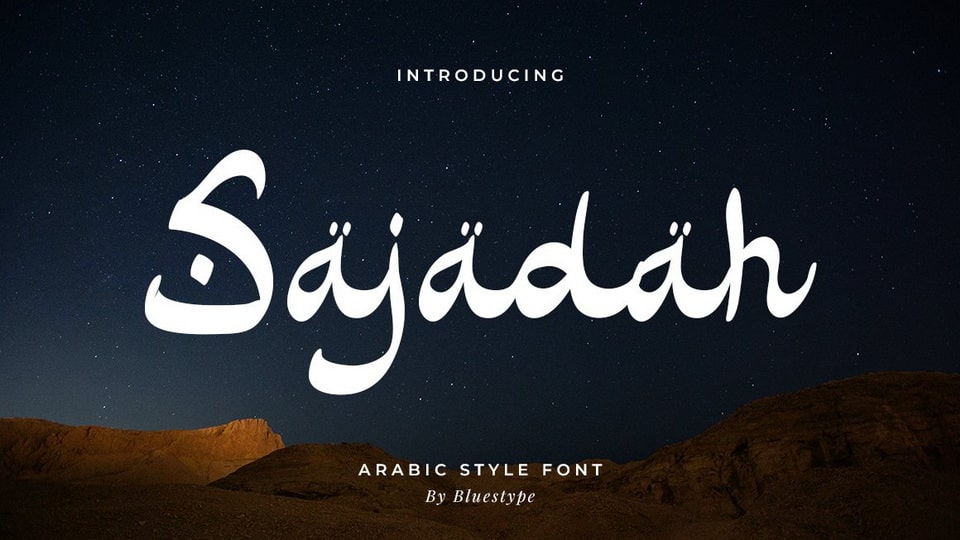
Download Sajadah font, a beautifully crafted typeface inspired by the elegance and cultural richness of Arabic calligraphy. Its intricate details and smooth curves reflect a sense of tradition and spirituality.